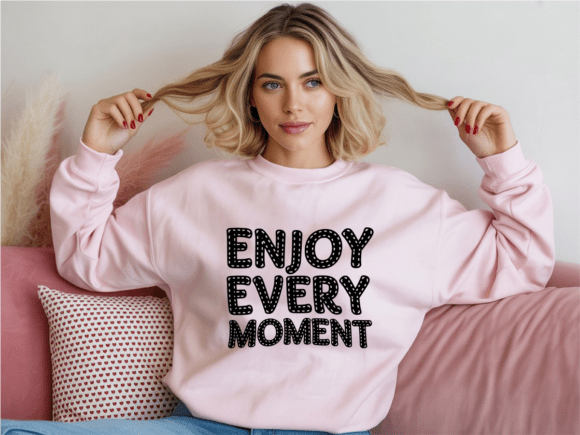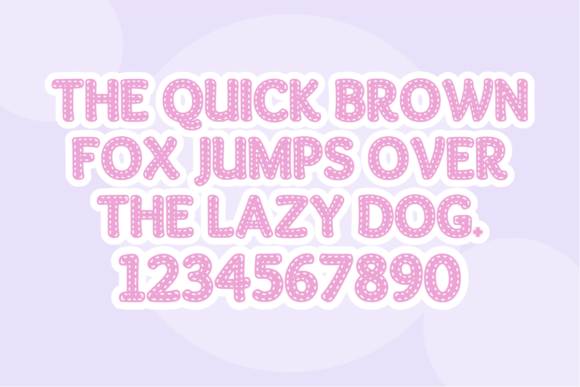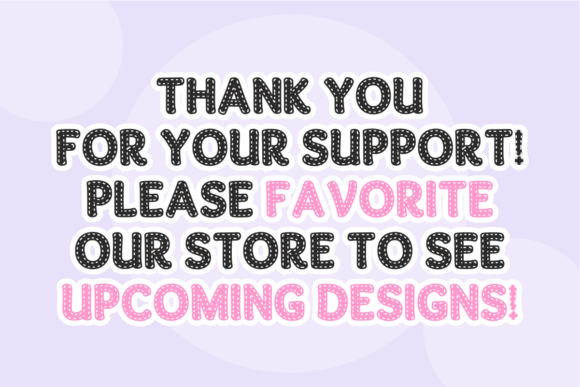
Baby Bold Font 🍼 – Adorable Stitched Display Font for Your Designs
Are you looking for a font that adds a touch of sweetness and innocence to your designs? Look no further than Baby Bold, a playful display font that features chunky, rounded characters with a charming stitched dashed-line detail inside. This adorable font is perfect for creating designs related to babies, kids, and whimsical crafts.
What Makes Baby Bold Special?
Baby Bold is a unique font that stands out from the rest due to its distinctive stitched detail. The font’s chunky, rounded characters give it a cozy and handmade feel, making it perfect for designs that require a personal touch. The stitched dashed-line detail inside each character adds a level of texture and visual interest, making your designs look like a cute handmade sticker or a cozy quilt.
Best Use Cases for Baby Bold
Baby Bold is a versatile font that can be used for a variety of design projects. Here are some of the best use cases for this adorable font:
- Nursery Wall Art & Room Decor: Create beautiful and personalized nursery wall art, room decor, and signs with Baby Bold. The font’s playful and whimsical feel makes it perfect for baby’s room.
- Baby Shower Invitations & Stationery: Make your baby shower invitations and stationery more special with Baby Bold. The font’s cute and charming feel will set the tone for a joyful celebration.
- Kids’ Apparel, Onesies, & T-shirt Designs: Design adorable onesies, t-shirts, and other kids’ apparel with Baby Bold. The font’s bold and playful feel makes it perfect for creating fun and eye-catching designs.
- Cricut & Silhouette Crafting Projects: Use Baby Bold for your Cricut and Silhouette crafting projects, such as paper crafts, vinyl decals, and iron-on designs. The font’s stitched detail will give your projects a unique and handmade feel.
- Birthday Posters & Cake Toppers: Create stunning birthday posters and cake toppers with Baby Bold. The font’s playful and celebratory feel makes it perfect for birthday designs.
- Student Crafts & Teacher Resources: Use Baby Bold for student crafts and teacher resources, such as classroom decor, worksheets, and activity sheets. The font’s fun and engaging feel will make learning more enjoyable.
- Scrapbooking & Digital Stickers: Add a touch of sweetness to your scrapbooking and digital sticker designs with Baby Bold. The font’s cute and charming feel makes it perfect for creating beautiful and personalized designs.
Why Choose Baby Bold?
Baby Bold is a great choice for designers and crafters who want to add a touch of sweetness and innocence to their designs. Here are some reasons why you should choose Baby Bold:
- Unique and Playful Design: Baby Bold features a unique and playful design that will make your designs stand out from the rest.
- Easy to Read: The font’s bold and chunky characters make it easy to read, even at small sizes.
- Versatile: Baby Bold can be used for a variety of design projects, from nursery decor to kids’ apparel.
- Handmade Feel: The font’s stitched detail gives it a handmade feel that will add a personal touch to your designs.
How to Use Baby Bold
Using Baby Bold is easy and straightforward. Here are some tips on how to use the font:
- Experiment with Different Sizes and Colors: Experiment with different sizes and colors to find the perfect combination for your design.
| Author | TaralArt |
Baby Bold is a unique and playful font that is perfect for designers and crafters who want to add a touch of sweetness and innocence to their designs. With its chunky, rounded characters and charming stitched dashed-line detail inside, Baby Bold is sure to make your designs stand out from the rest. Whether you’re creating nursery decor, kids’ apparel, or scrapbooking designs, Baby Bold is the perfect choice. So why wait? Download Baby Bold today and start creating adorable designs that will make everyone go “aww”!